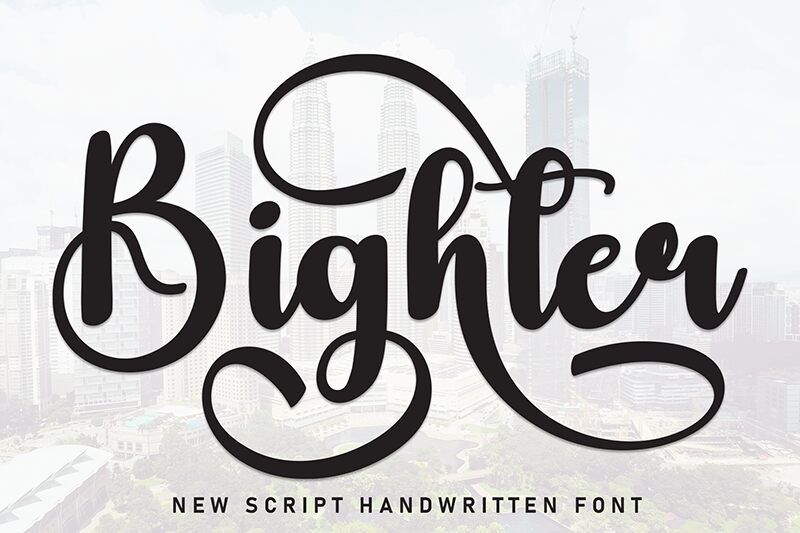
Bighter
Bighter font by Scratchones is a free brush font with an elegant and flowing cursive style. The font’s smoothly connected letters give the typeface a decorative flair that adds a contemporary appeal whenever it is used. Use this exquisite font when working on branding projects, advertising material, or even personal designs.
It can make your greeting cards, invitations (weddings as well), social media posts, photography work, ornaments for special occasions, book titles and covers look outstanding. The artistic-looking letters of this calligraphy typeface would even blend in perfectly in logotypes or visual identity projects where elegant fonts are needed.